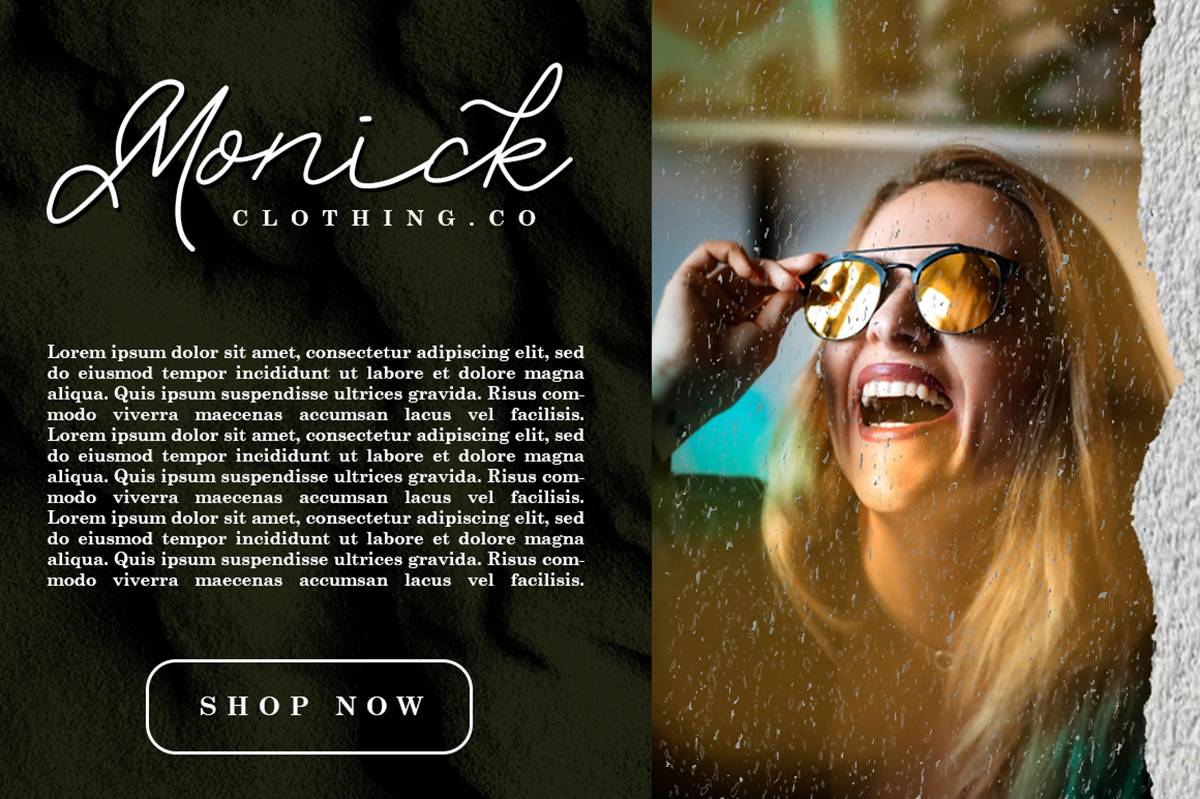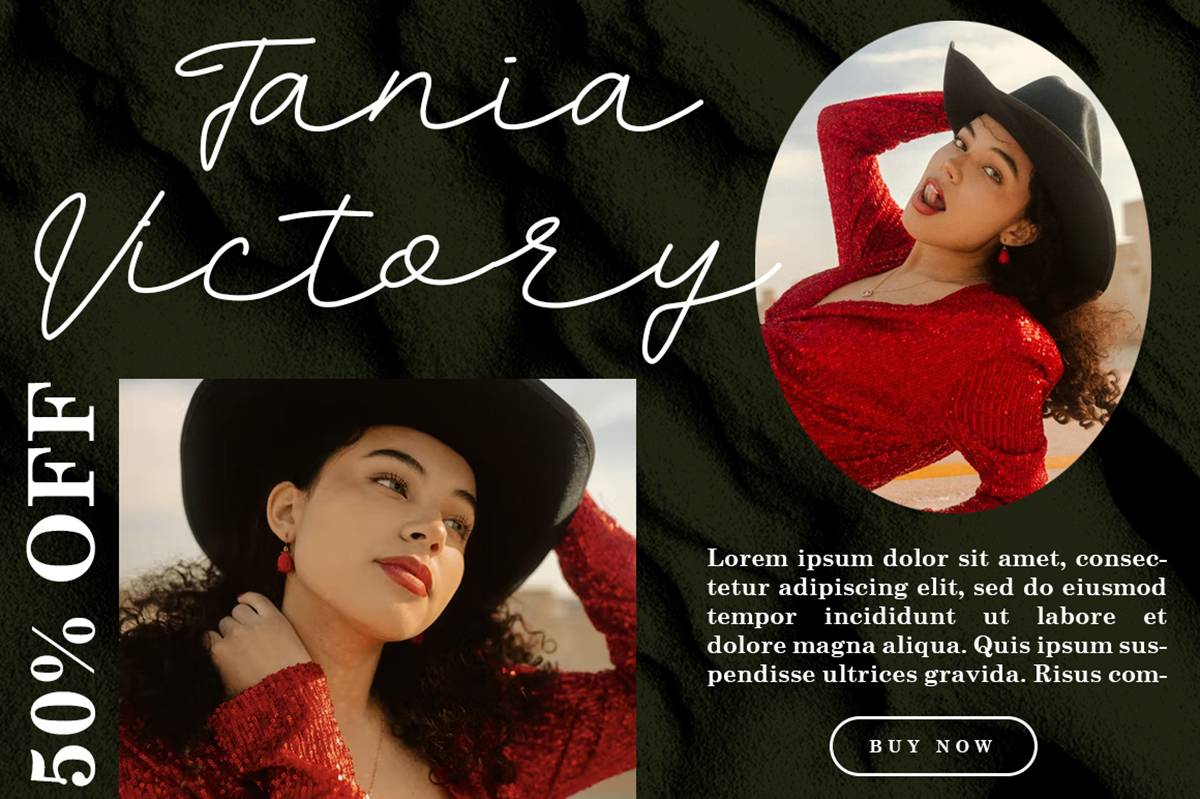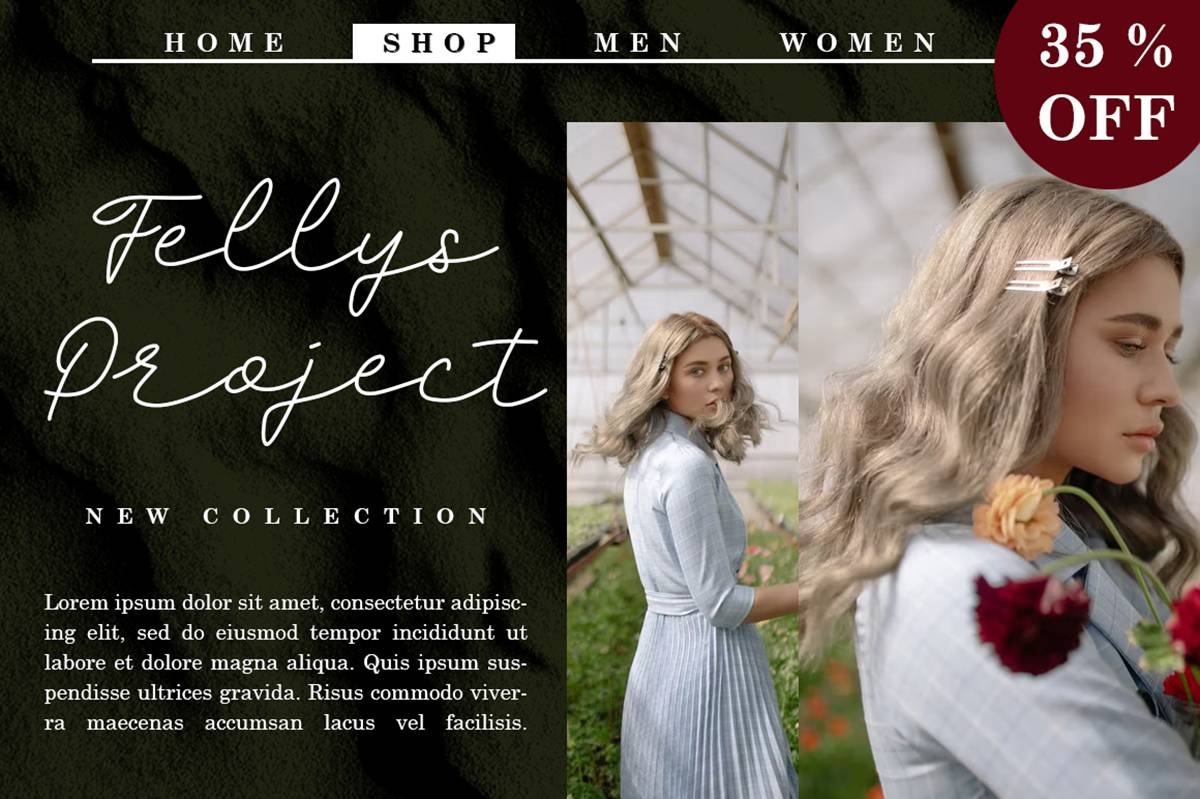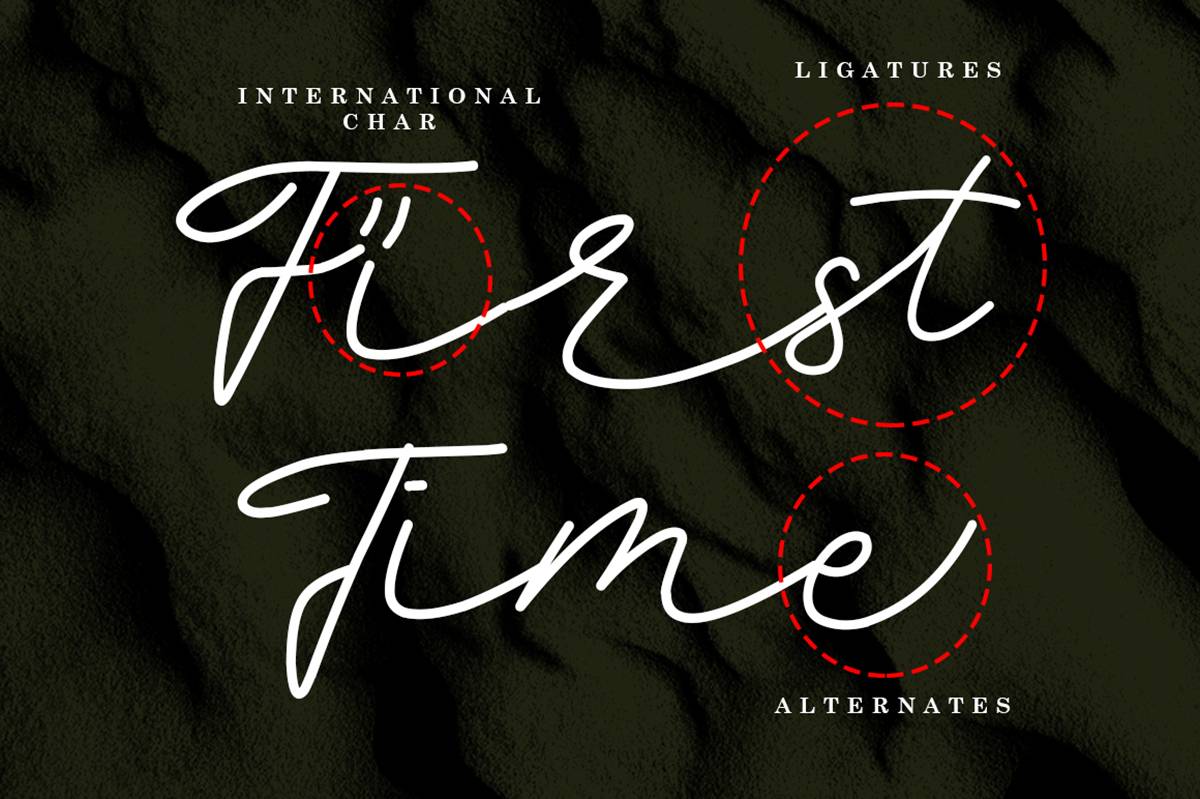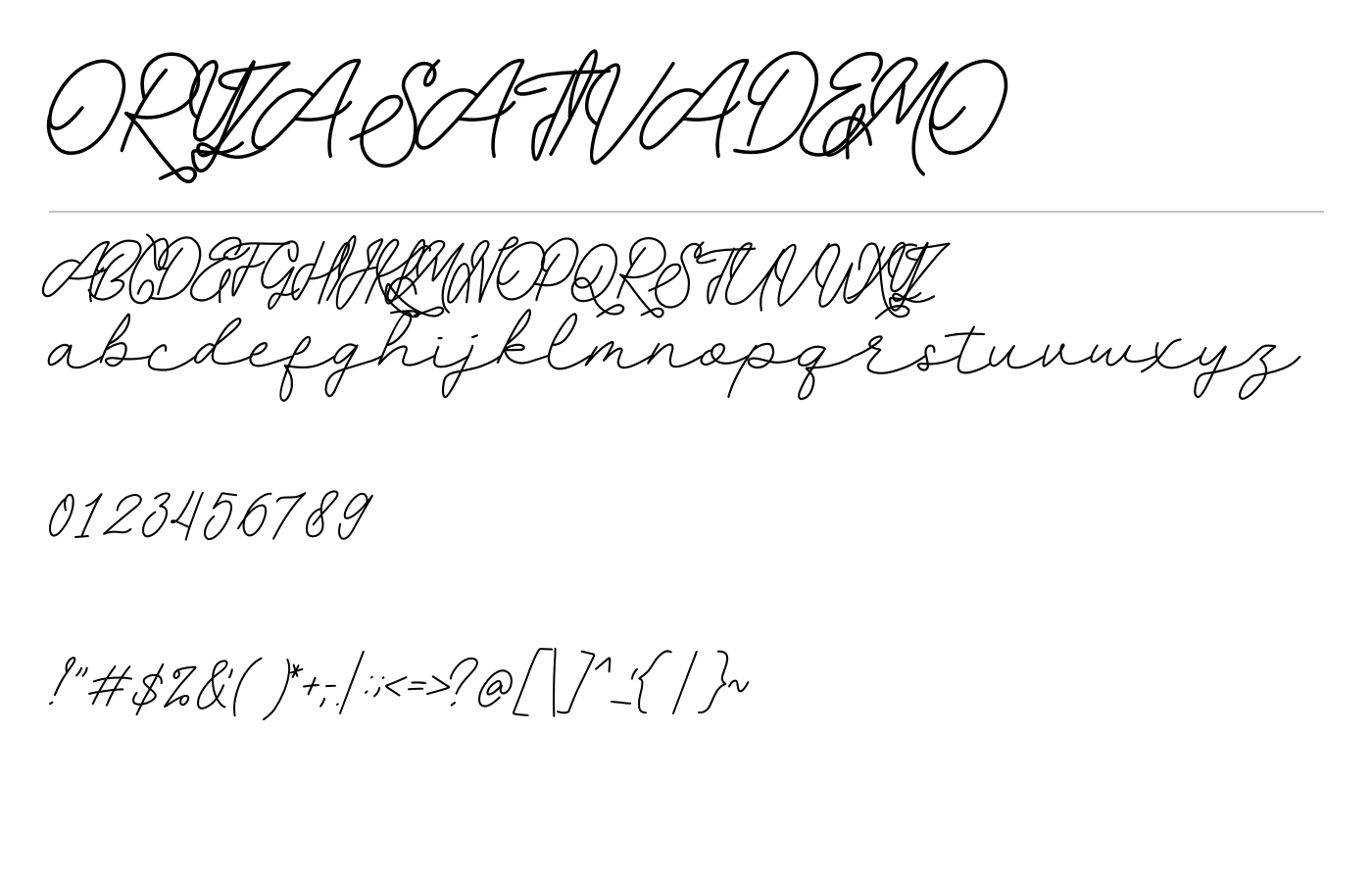
Oryza Sativa is an elegant, light script font with delicate, flowing strokes that give it a refined and graceful feel. Its thin lines and connected letterforms create a handwritten, calligraphic style that is perfect for sophisticated branding, invitations, and artistic projects where a personal, stylish touch is desired. This font works best in contexts that require a sense of elegance and fluidity without compromising readability.
Oryza Sativa Font
About Oryza Sativa Font